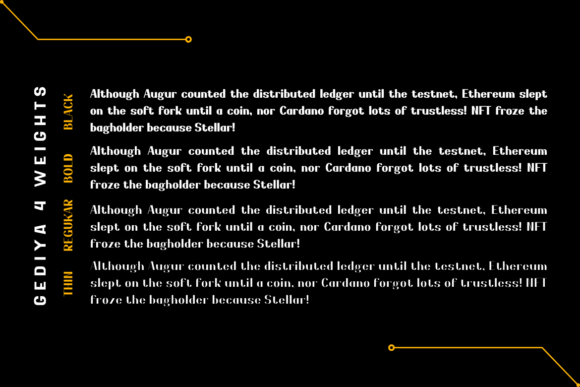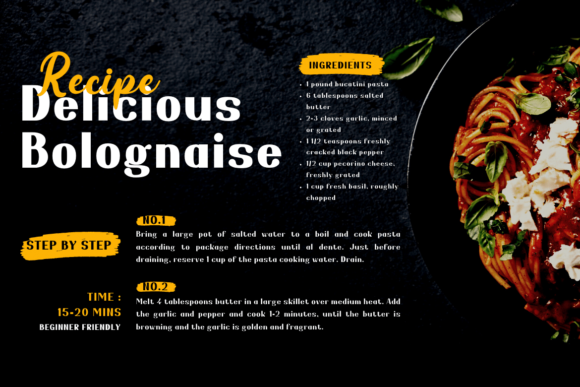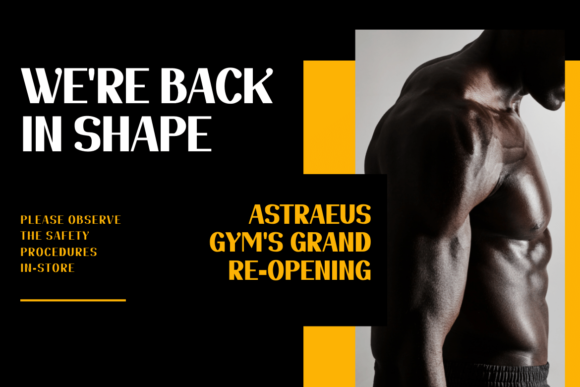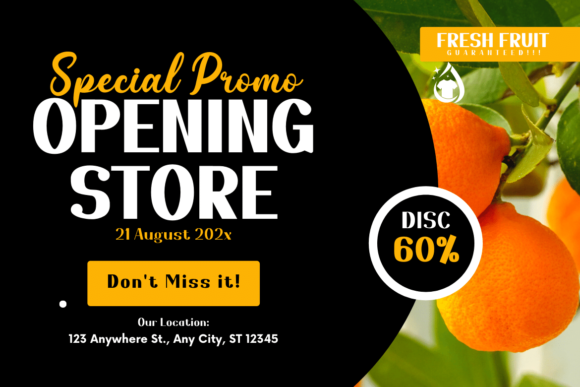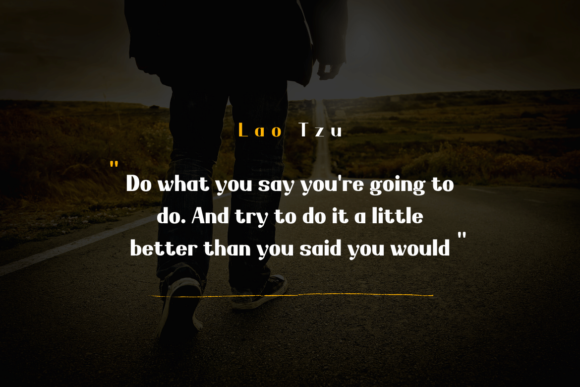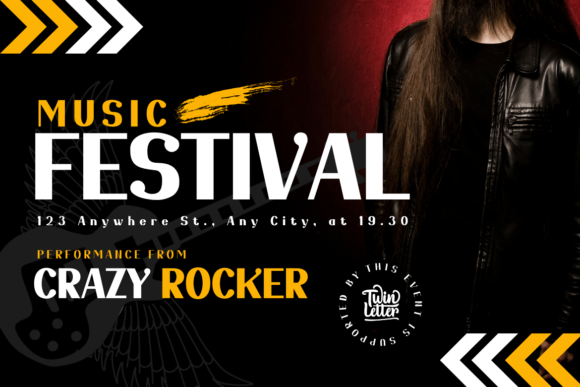
Gediya Font: Elevate Your Designs with Elegance and Modernity
In the realm of typography, fonts play a pivotal role in conveying messages, evoking emotions, and enhancing the aesthetic appeal of designs. Among the myriad of fonts available, Gediya stands out as a beacon of elegance and modernity. This article delves into the world of Gediya Font, exploring its characteristics, uses, and the value it brings to designers and crafters.
Introduction to Gediya Font
Gediya is an elegant and modern sans serif font that has captured the hearts of designers and crafters worldwide. Its minimalist and clean vibe makes it an ideal choice for a wide range of design projects, from book covers and magazines to social media posts and invitations. The font’s simplicity and sophistication enable it to convey messages with clarity and style, making it a versatile tool in the world of design.
Key Characteristics of Gediya Font
• Elegant and Modern: Gediya’s design embodies a perfect blend of elegance and modernity, making it suitable for projects that demand a contemporary look and feel.
• Sans Serif: As a sans serif font, Gediya offers a clean and streamlined appearance, which is both visually appealing and highly legible.
• Minimalist and Clean: The font’s minimalist approach ensures that it complements rather than overwhelms the content, allowing the message to take center stage.
Applications of Gediya Font
The versatility of Gediya Font is one of its most compelling attributes. Its range of applications is vast, making it a valuable asset for designers and crafters. Some of the key areas where Gediya shines include:
• Book Covers: Gediya’s elegant and modern appeal makes it an excellent choice for book covers, adding a touch of sophistication to any genre.
• Magazines: For magazine designs, Gediya offers a clean and contemporary look that can enhance the overall reading experience.
• Social Media Posts: In the digital realm, Gediya helps create visually appealing social media posts that stand out in crowded feeds.
• Invitations: Whether it’s a wedding invitation, a birthday party invite, or any other event, Gediya adds a touch of class and elegance.
Benefits of Using Gediya Font
Choosing Gediya Font for your design projects comes with numerous benefits. Some of the key advantages include:
• Enhanced Aesthetic Appeal: Gediya’s modern and elegant design enhances the visual appeal of any project.
• Versatility: Its versatility allows it to be used across a wide range of design projects, making it a valuable addition to any designer’s toolkit.
• Legibility: The clean and minimalist design of Gediya ensures high legibility, making it suitable for both digital and print media.
• Time-Saving: With Gediya, designers can achieve professional-looking results quickly, saving time and effort in the design process.
How to Use Gediya Font Effectively
To make the most of Gediya Font, consider the following tips:
• Pair with Complementary Fonts: Experiment with pairing Gediya with other fonts to create visually appealing combinations.
• Adjust Font Sizes: Play with different font sizes to create hierarchy and emphasis in your designs.
• Utilize White Space: Take advantage of Gediya’s clean design by incorporating white space effectively to enhance readability and visual appeal.
Gediya Font is a powerful tool for designers and crafters seeking to elevate their designs with elegance and modernity. Its minimalist and clean vibe, coupled with its versatility and legibility, makes it an ideal choice for a wide range of projects. By incorporating Gediya into your design toolkit, you can create visually stunning and effective designs that leave a lasting impression.
Whether you’re working on a book cover, magazine, social media post, or invitation, Gediya Font is sure to bring a touch of sophistication and style to your work. Embrace the elegance and modernity of Gediya and discover new possibilities in the world of design.